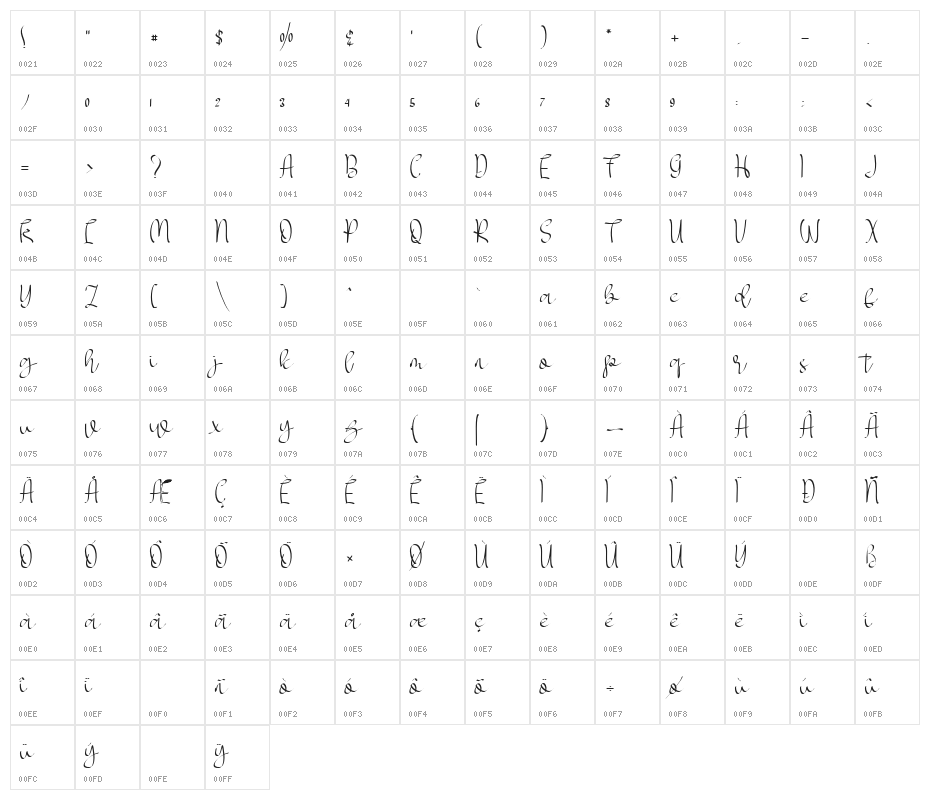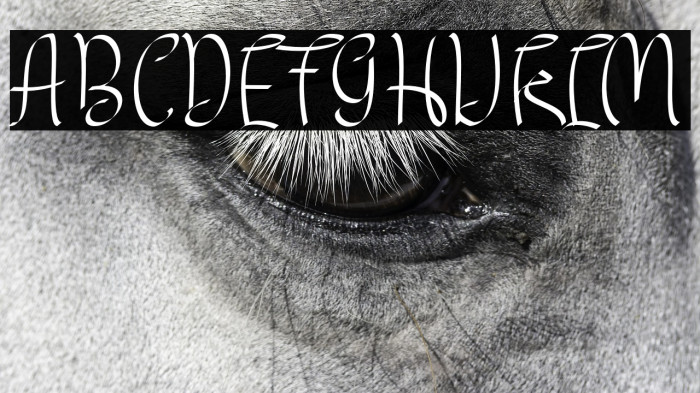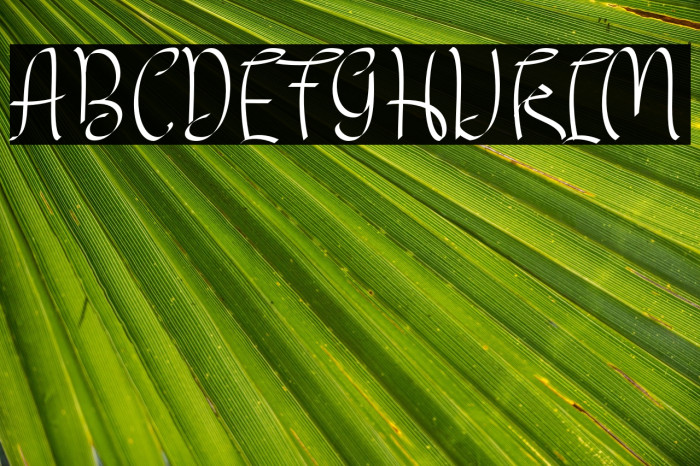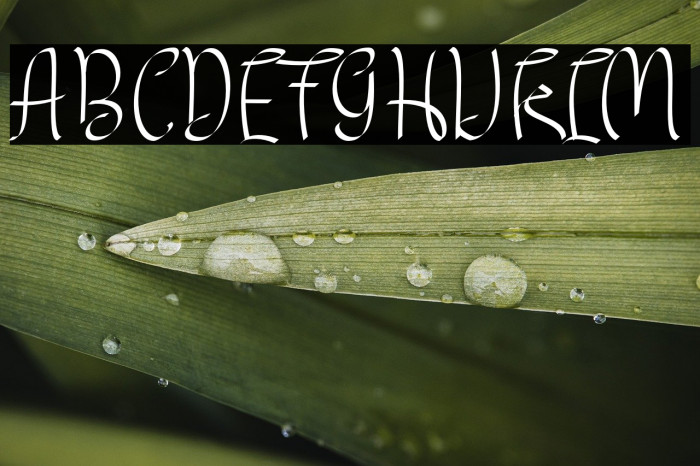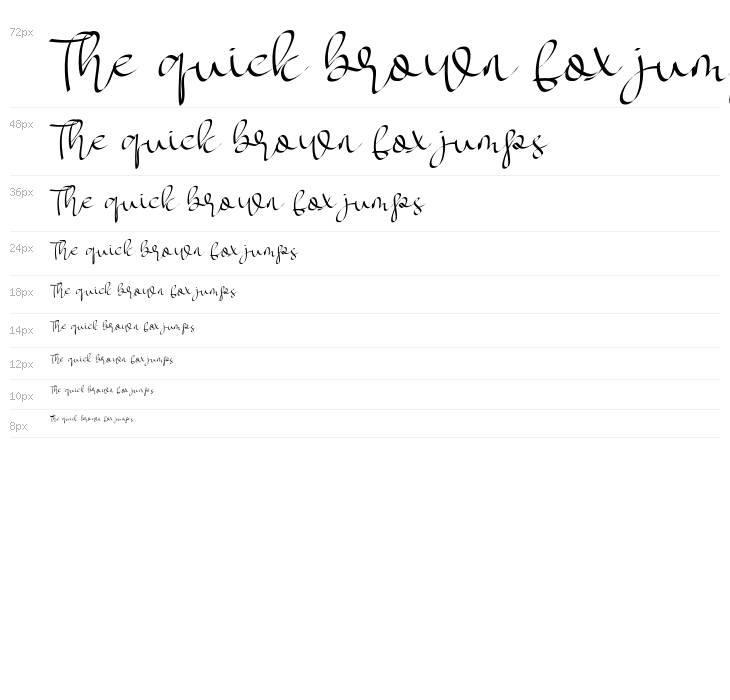
MYLOVEelegant Font
This font exudes elegance and sophistication with its flowing, cursive style. The letters are beautifully crafted with a sense of fluidity and grace, making it ideal for projects that require a touch of class. The uppercase letters are bold and striking, while the lowercase letters maintain a delicate balance with their intricate loops and curves. The numerals are clear and complement the overall aesthetic. Special characters are thoughtfully designed, maintaining the font's cohesive look. This font is perfect for invitations, branding, and any project that seeks to convey elegance and refinement.
Overall StyleElegant
Use CaseLogos, Invitations, Branding
Proposed ProjectsIdeal for wedding invitations, luxury branding, elegant stationery, and high-end product packaging.